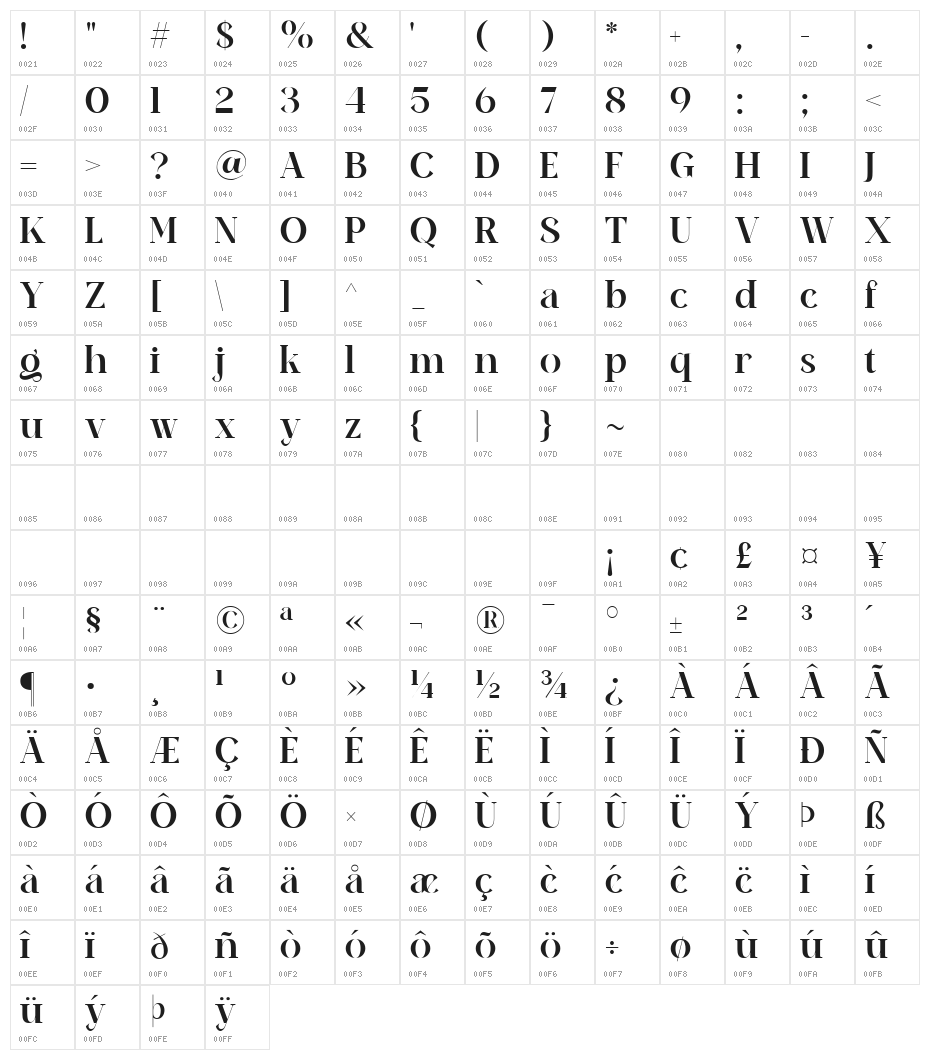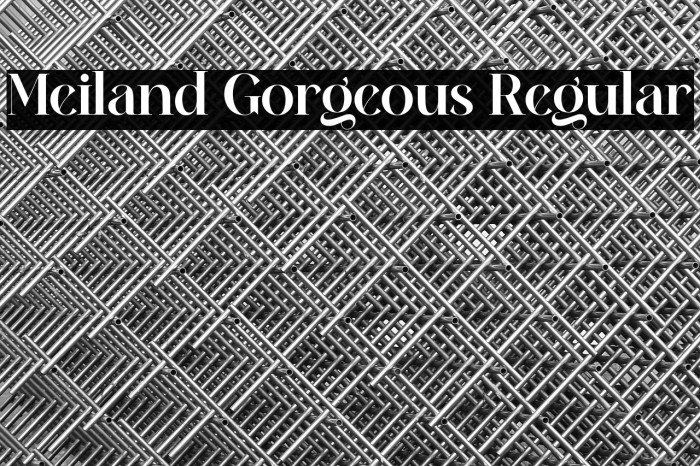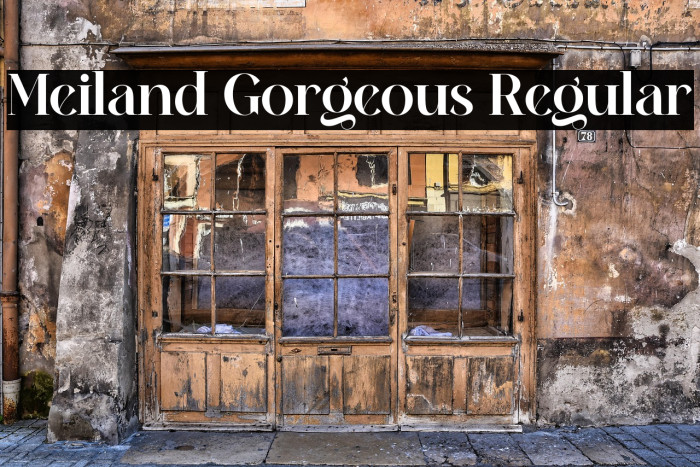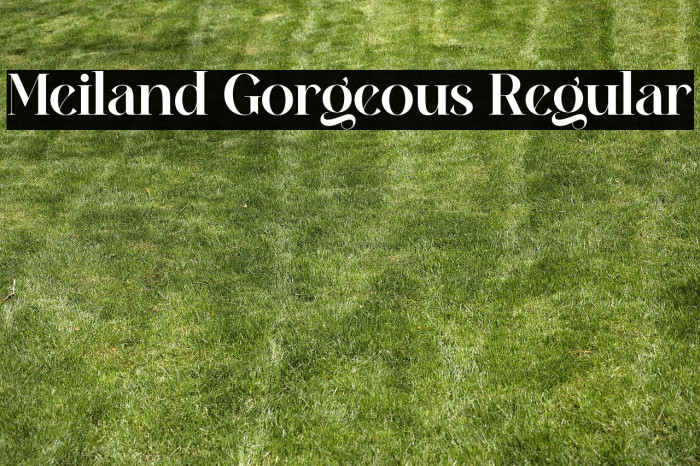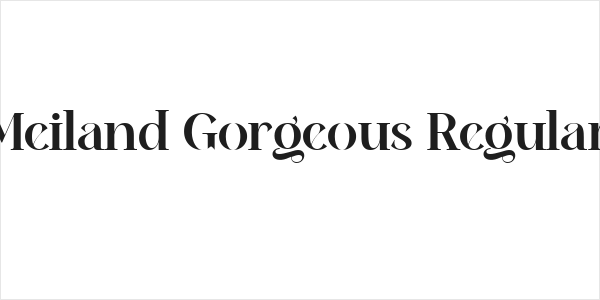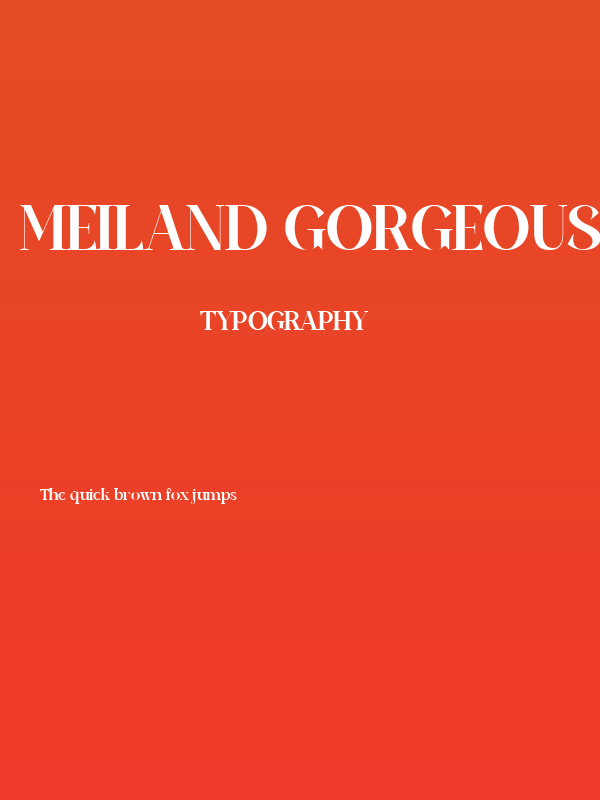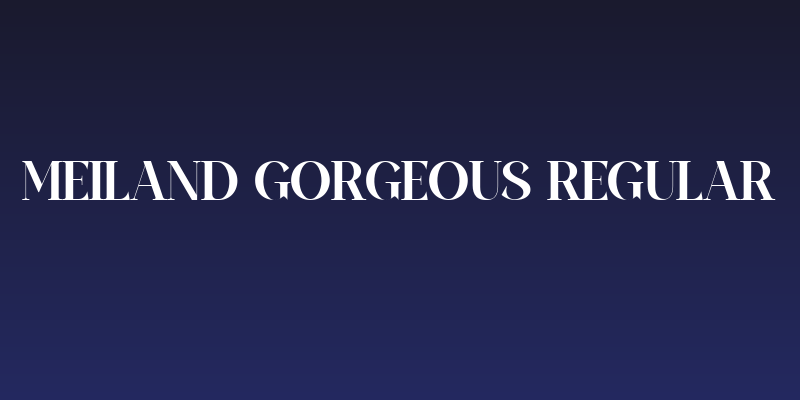
Meiland Gorgeous Regular Font
Meiland Gorgeous Regular Description
This font exudes elegance and sophistication with its high contrast between thick and thin strokes, creating a dramatic and eye-catching appearance. The serif design is both classic and modern, with sharp, clean lines and a refined aesthetic. The uppercase letters are bold and commanding, while the lowercase letters maintain a graceful flow, adding a touch of softness to the overall look. The numerals are distinct and stylish, complementing the alphabetic characters beautifully. Special characters are crafted with the same attention to detail, ensuring consistency throughout the font. This typeface is perfect for projects that require a touch of luxury and class.